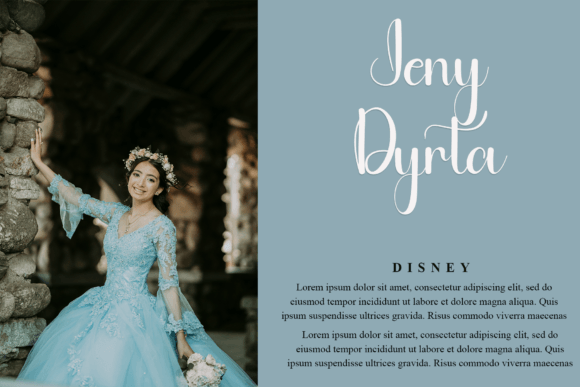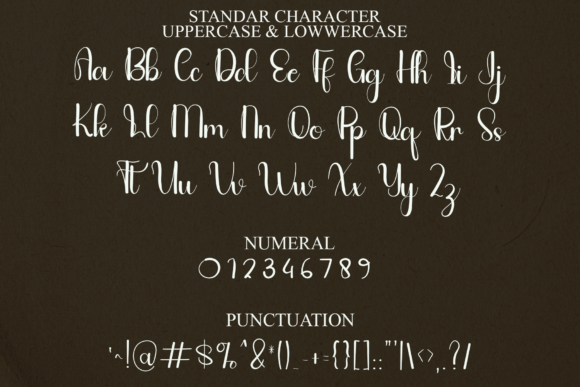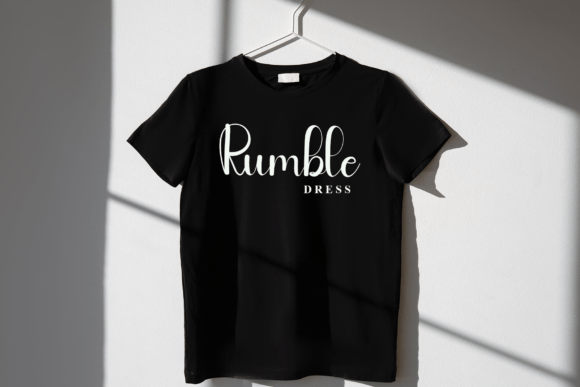
Introduction to Quinceanera Font
As designers, we’ve all been there – staring at a blank page, searching for the perfect font to bring our creative project to life. And then, it happens. You stumble upon that one font that makes everything click, and your design starts to take shape. For many of us, that font is the Quinceanera Font. This charming handwritten font is more than just a design element – it’s an experience.
With its playful yet legible style, the Quinceanera Font adds a touch of whimsy to any project. Whether you’re working on a greeting card, invitation, or branding, this font captures the essence of handmade authenticity with its natural strokes and irregularities. And the best part? It’s available for free download, making it a valuable resource for designers of all levels.
Key Features of Quinceanera Font
- Unique, elegant design perfect for a Quinceanera celebration or any other creative project
- Perfect for use in invitations, posters, and other design elements for a Quinceanera celebration or any other special event
Honest Review: Quinceanera Font
I recently had the chance to work with the Quinceanera Font, and I must say it’s a beautiful addition to any design project. The font’s elegant and sophisticated design makes it perfect for creative projects that require a touch of luxury.
Here are some things that work well with the Quinceanera Font: ✨
- Beautiful, elegant design that adds a touch of luxury to any project
- High-quality lines that are clear and crisp
While the Quinceanera Font is a great resource, there are a few limitations to be aware of: ⚠️
- Only comes in a limited range of font weights and styles
- May not be suitable for projects that require a more casual or playful tone
Overall, I’m impressed with the Quinceanera Font. It’s a high-quality design resource that can add a touch of elegance to any creative project.
The Quinceanera Font is a beautiful, high-quality design resource perfect for any creative project. With its elegant and sophisticated style, it’s ideal for celebrating the 15th birthday of a young woman. You can download it for free and use it in various design applications.
The Quinceanera Font is perfect for Quinceanera invitations, party decorations, and other celebratory materials. You can also use it in other creative projects, such as wedding invitations, birthday party decorations, or any other design that requires a touch of elegance and sophistication.